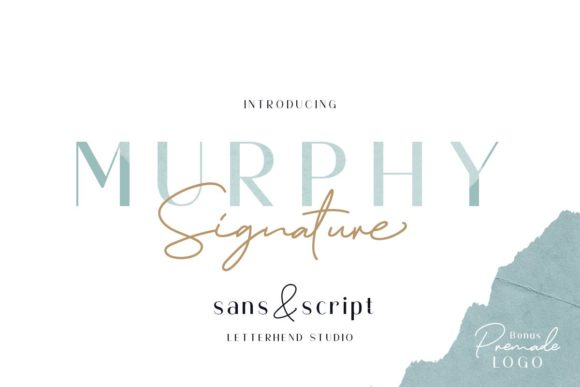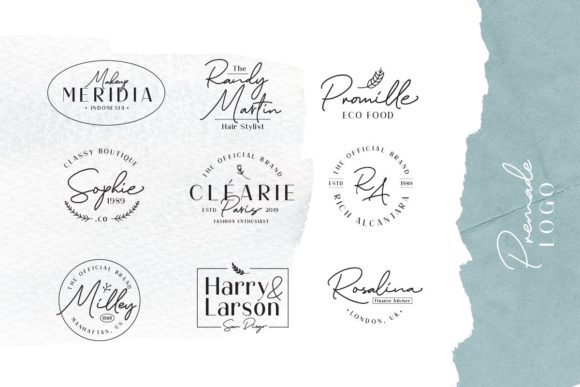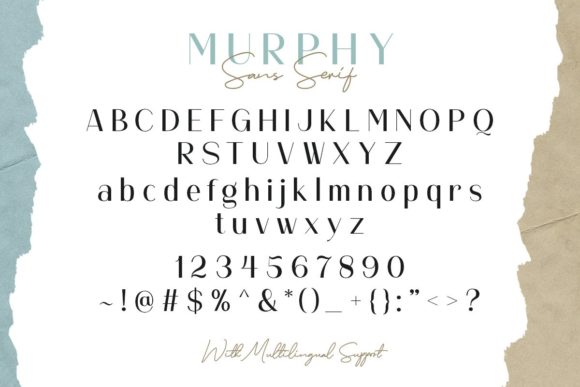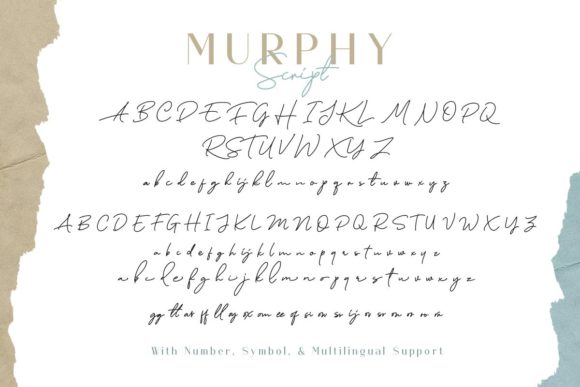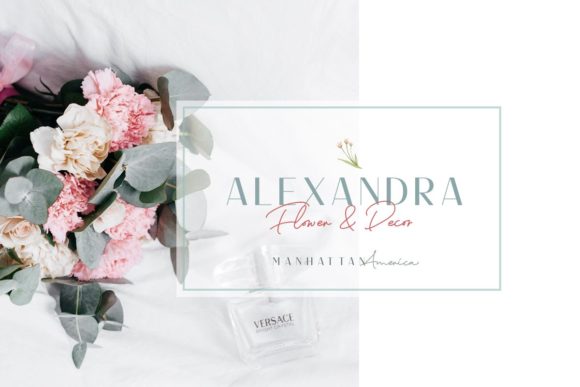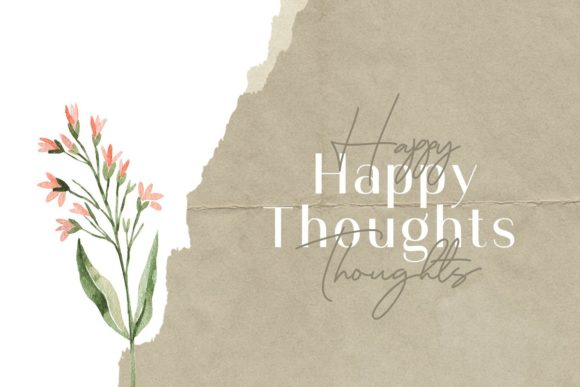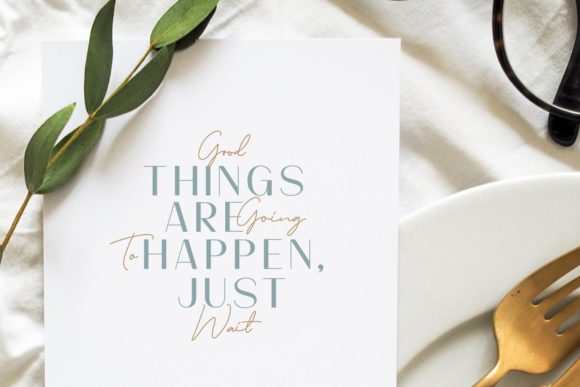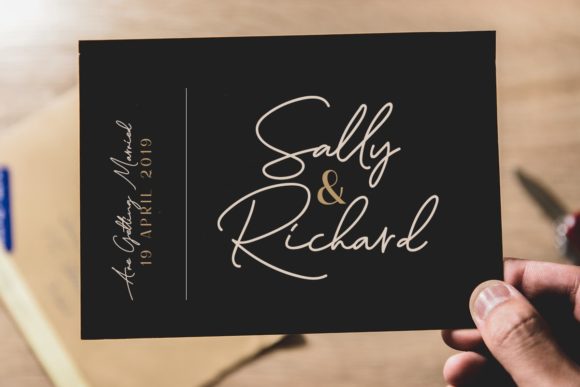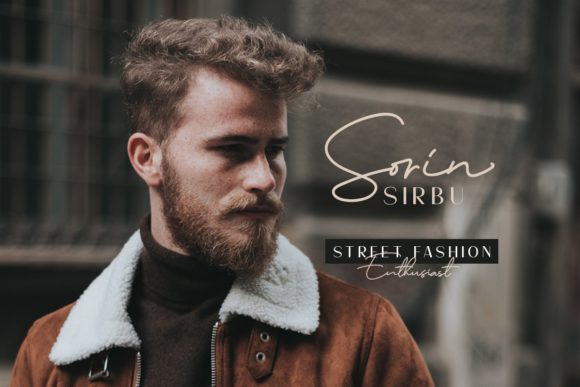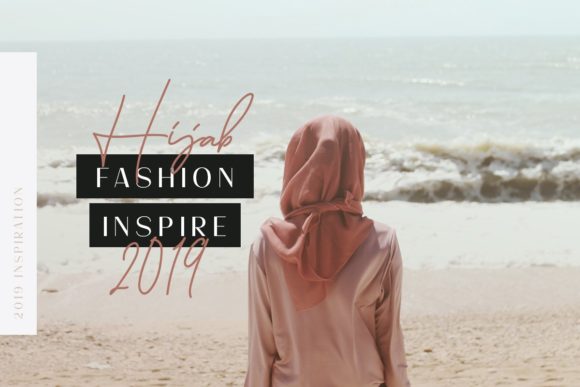
HomeScript FontsMurphy Font Script Fonts Murphy Font FacebookXPinterestWhatsApp Murphy Font Poster 2 Murphy Font Poster 3 Murphy Font Poster 4 Murphy Font Poster 5 Murphy Font Poster 6 Murphy Font Poster 7 Murphy Font Poster 8 Murphy Font Poster 9 Murphy Font Poster 10 Murphy Font Poster 11 Murphy Font Poster 12 About Murphy Font Murphy is a pretty font duo with script and sans styles. Fall in love with its charming look & feel! DOWNLOAD NOW People also explored Mirum Font Bavillia Font Bringtong Font Maricle Font Spooky Mistery Font Encrypt Font Wolectum Font Matter Font Songot Font 374 0 TagsMurphy Font Previous articleOlive FontNext articleHougbon Font LEAVE A REPLY Cancel reply Comment: Please enter your comment! Name:* Please enter your name here Email:* You have entered an incorrect email address! Please enter your email address here Website: Save my name, email, and website in this browser for the next time I comment. Personal Use Free Peachy Rose Personal Use Free Read more about this font Septhine Personal Use Free Read more about this font Romantic February Personal Use Free Read more about this font Kellana Personal Use Free Read more about this font BLOG Transform Your Website: Elevate Your Typography with 7 Best Web Font Generators Are you ready to transform your website's typography from ordinary to extraordinary? Great! Today, we're diving into the world of web font generators, which... 5 Fonts That Will Dominate Design Trends in 2026 How to Install and Use Fonts on Windows, macOS, and Web Projects Exploring Font Trends